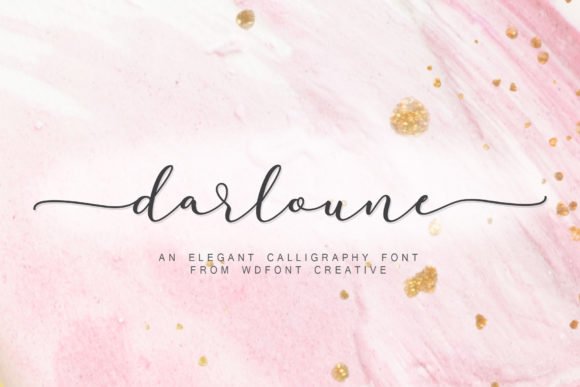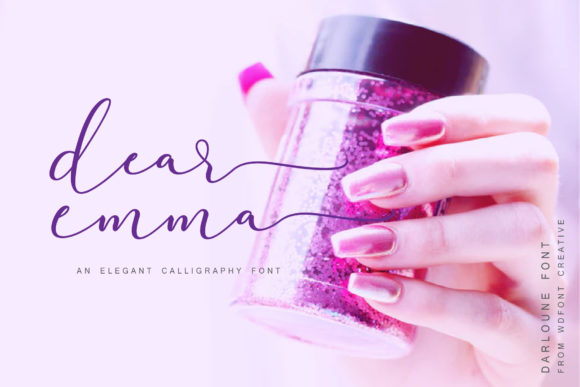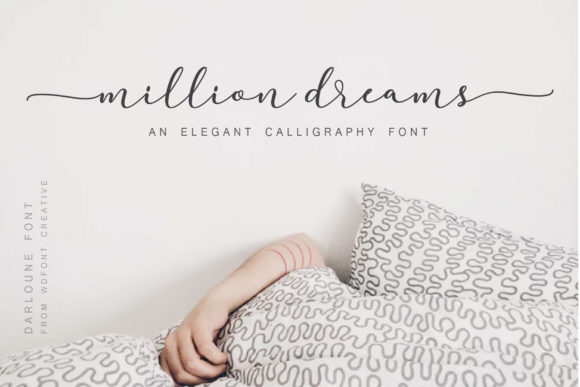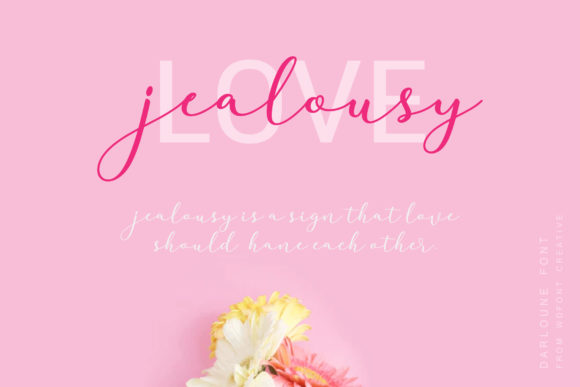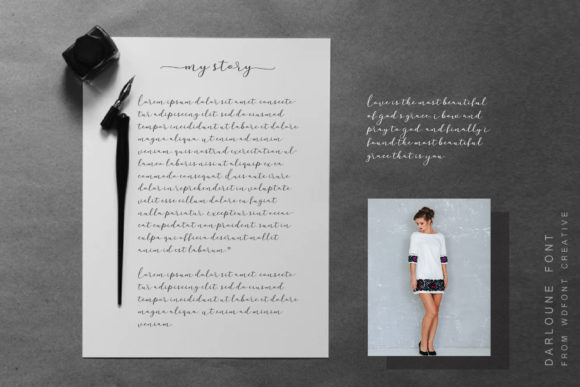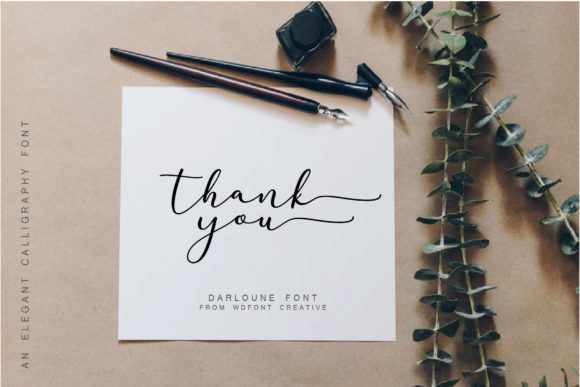
Discover the Allure of the Darloune Font
There’s something magical about stumbling upon the perfect font for a design project. The thrill of the hunt, the excitement of seeing your ideas come to life – it’s a feeling that never gets old. And for designers, finding the right font can make all the difference between a good design and a great one. This is where the Darloune Font comes in, a light and fresh handwritten font that’s sure to inspire your next creative project with its incredibly romantic feel.
Whether you’re working on a wedding invitation, a branding project, or a social media campaign, the Darloune Font is the perfect addition to any design. Its elegant, handwritten style adds a touch of sophistication and whimsy, making it a valuable asset for designers looking to add some personality to their work. With the Darloune Font, the possibilities are endless, and the results are sure to be stunning.
Darloune Font Key Features
- Font Family: Darloune
- Unique Characteristics: Darloune features a unique blend of modern and vintage elements, with intricate details and elegant curves, making it ideal for creative and artistic applications
Darloune Font Review
Overall, I found the Darloune Font to be a beautiful, elegant script font. ✨ Its flowing lines and smooth curves make it perfect for creating a sophisticated, high-end feel in any design project.
The font is well-suited for use in logos, invitations, and other materials where a touch of luxury is desired. ✨ Its versatility makes it a great choice for designers looking to add a bit of flair to their work.
Here are some of the font’s strengths:
- Beautiful, flowing lines and curves
- High-end feel perfect for luxury brands
- Versatile and suitable for a variety of design projects
- Available in multiple weights and styles
However, I did find a few limitations:
- May not be suitable for use in smaller text sizes, as the lines can become difficult to read
- Can be a bit too ornate for some design projects, making it difficult to balance with other elements
- Not as versatile for use in sans-serif or modern design projects
Overall, I think the Darloune Font is a great choice for designers looking to add a touch of elegance to their work. While it may have some limitations, its strengths far outweigh its weaknesses, making it a valuable addition to any font collection.
For the most out of Darloune Font, use it in bold or italic styles to add emphasis to your text. You can also pair it with other fonts to create a unique design.
Darloune Font is ideal for designing creative and modern logos, typography-based designs, and fashion-related projects. It is also suitable for use in graphic novels, comics, and children’s books.
Alternatives to Darloune Font
Playfair Display is a luxurious and elegant serif font, perfect for adding a touch of sophistication to your designs. It’s ideal for use in titles, headings, and other high-impact text where you want to create a sense of drama and opulence.
Compared to Darloune Font, Playfair Display has a more refined and polished look, with a greater emphasis on elegance and sophistication. While Darloune Font has a more distressed and vintage feel, Playfair Display is more modern and sleek.
Great Vibes is a beautiful and elegant script font, perfect for adding a touch of whimsy and romance to your designs. It’s ideal for use in titles, headings, and other high-impact text where you want to create a sense of playfulness and joy.
Compared to Darloune Font, Great Vibes has a more fluid and organic feel, with a greater emphasis on expressiveness and personality. While Darloune Font has a more structured and formal look, Great Vibes is more free-flowing and spontaneous.
Pacifico is a beautiful and elegant script font, perfect for adding a touch of sophistication and elegance to your designs. It’s ideal for use in titles, headings, and other high-impact text where you want to create a sense of calm and serenity.